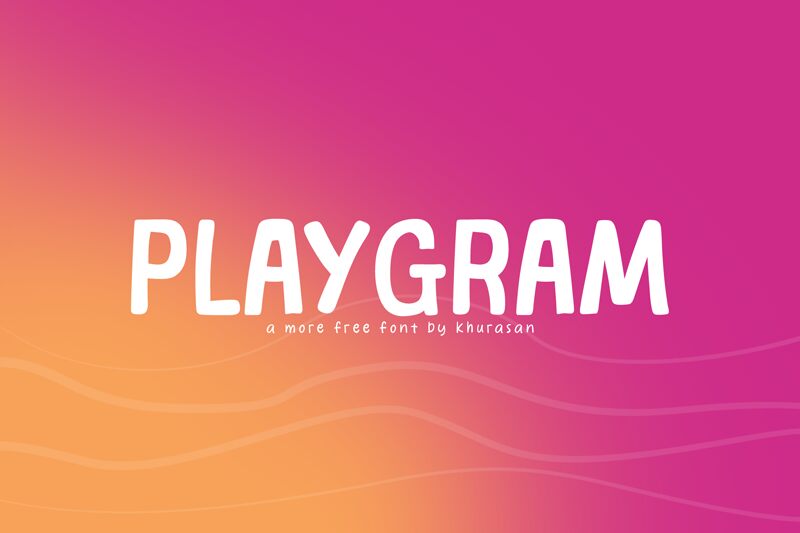
Playgram
Playgram, designed by Khurasan, is a charming and contemporary display font that adds a playful touch to any design.
Its semi-light weight and cartoon style make it ideal for a variety of projects. Use Playgram to create eye-catching posters, captivating logos, visually stunning magazines, vibrant book covers, and attention-grabbing banners. This versatile font can effortlessly enhance your creative ideas and make them truly distinctive.
Give your designs an adorable and modern twist with Playgram!